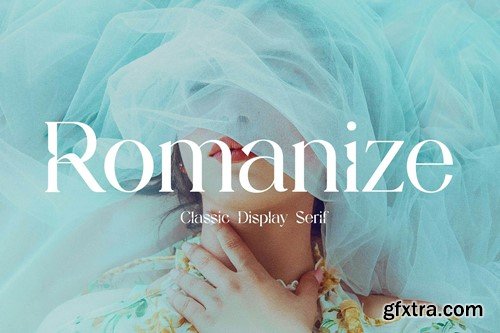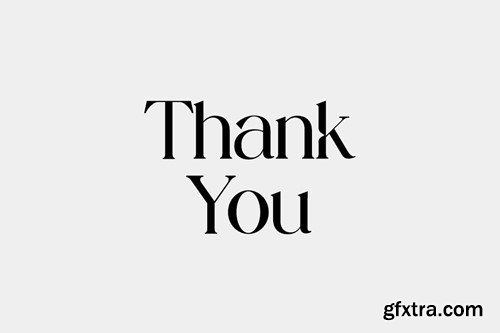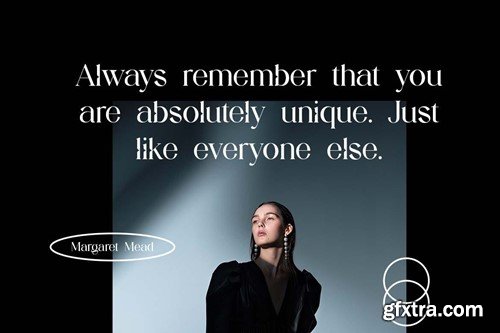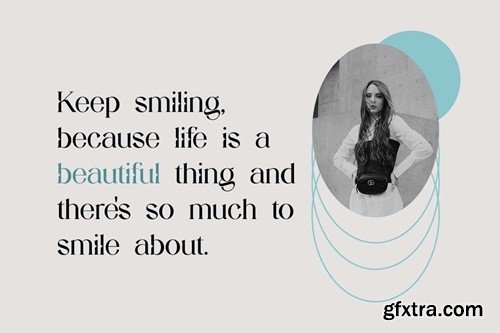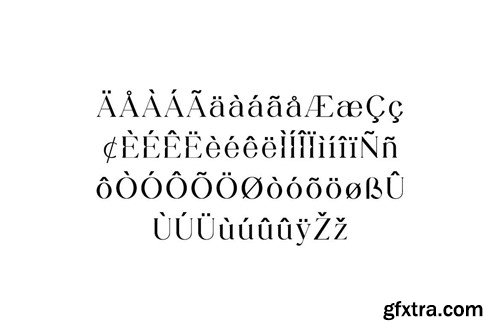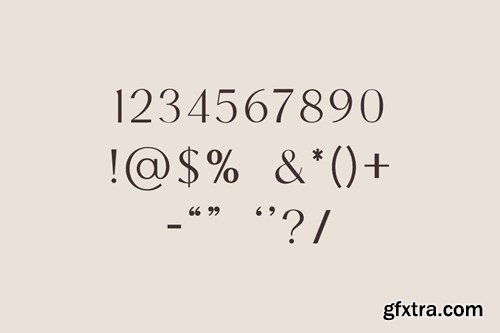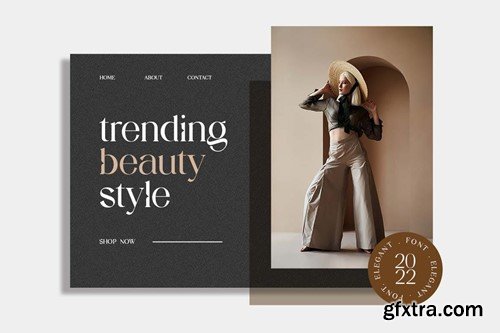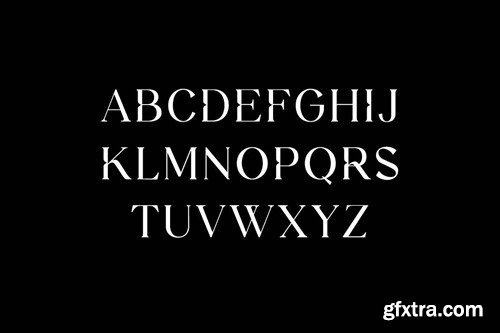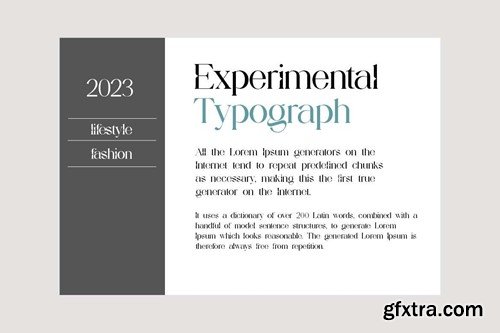
罗马化经典衬线字体 RJ4A7T2
Romanize Classic Display Serif Font RJ4A7T2
Romanize Classic Display Serif Font
Introducing our new product the name is Romanize Classic Display Serif Font. Classic Serif font that feels beautiful classy, elegant, and modern. This font is ideally suited for a wide variety of projects, such as signature, stationery, logo, wedding, typography quotes, magazine or book covers, website headers, clothing, branding, packaging design, and more. Also, fashion-related branding or editorial design displays both masculine and feminine qualities.
Supported Characters:
• ABCDEFoHIJÁLMNOPQRSTUVWXYZ
• abcdefghijklmnopqrstuvwxyz
• 0123456789
• !"#$&'()*+,-./:;=?@[]_{|} ¡¢«»¿
• ÀÁÂÃÄÅÇÈÉÊËÌÍÎÏÑÒÓÔÕÖØÙÚÛÜÝ
• àáâãäåçèéêëìíîïñòóôõöøùúûüÿ
• ĀāĂ㥹ĆćĈĊċČčĎďĒēĔĕĖėĘęĚěĜĞğĠġĤĨĩĪī
• ĬĭİıĴĹĽľŁłŃńŇňŌōŎŏŔŘřŚśŜŞşŠšŤ
• ťŨũŪūŬŭŮůŴŶŸŹźŻżŽžǫ
• ȦɢɪɴʀʏʙʜʟᴀᴄᴅᴇᴊᴋᴍᴏᴘᴛᴜᴠᴡᴢẀẂẄẼỲ